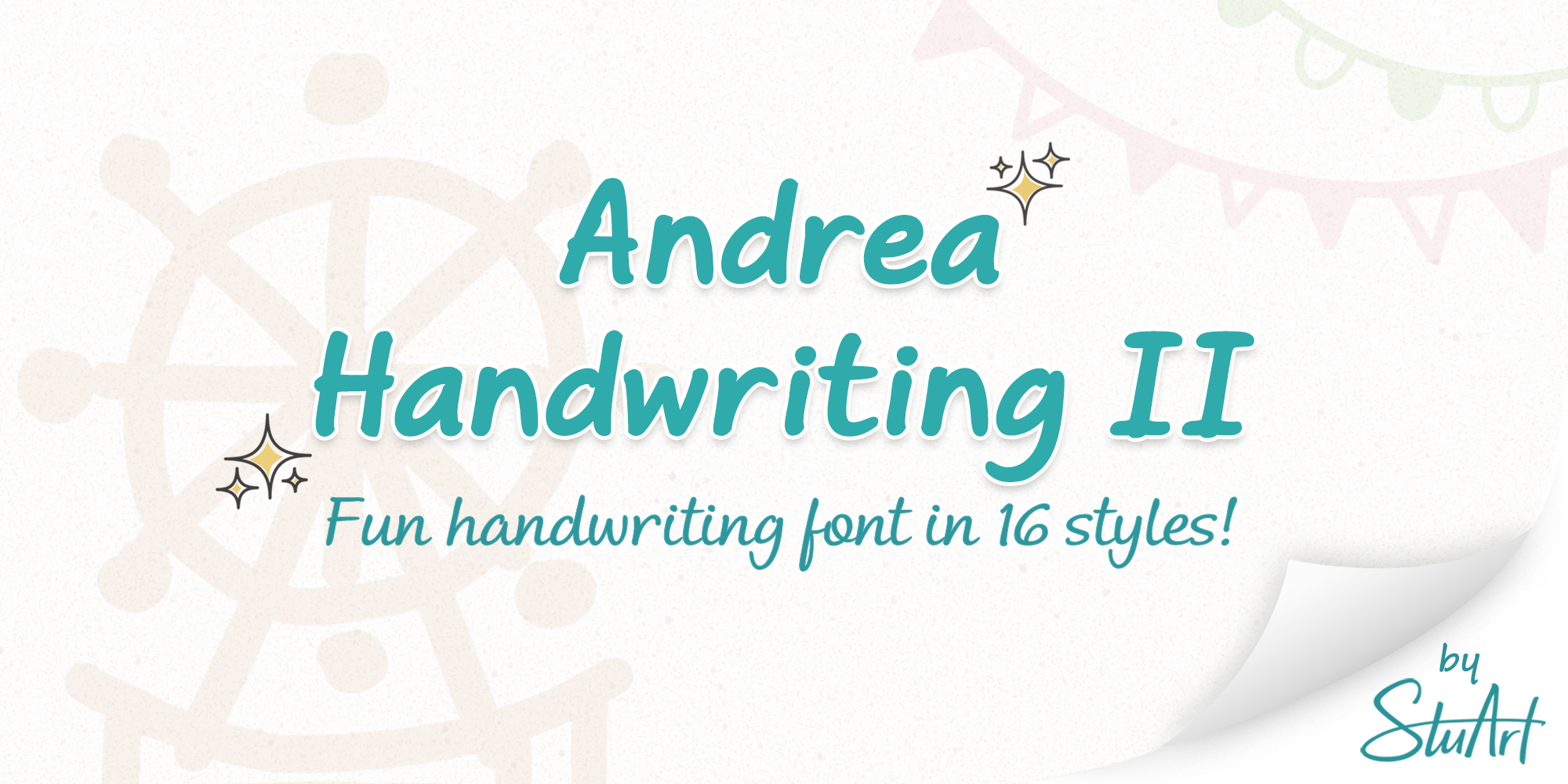
Andrea Handwriting II Font is ideal for personal stationery design, handwritten letter templates, journal and diary layouts, feminine lifestyle branding, personal blog headers, intimate wedding invitations, artisan craft labels, and authentic personal correspondence materials. This graceful typeface brings personal warmth and handwritten authenticity to any design project celebrating individual expression and the intimate beauty of personal communication.
What makes Andrea Handwriting II Font exciting is its genuine capture of natural handwriting flow combined with feminine elegance that perfectly embodies the personal touch and intimate character of authentic hand-penned correspondence. The flowing letterforms feature natural pen strokes and personal rhythm that create an unmistakably genuine appearance. Each character reflects individual personality and writing style, making it ideal for brands that celebrate personal expression, authentic communication, and the timeless beauty of handwritten messages.
The Andrea Handwriting II Font family typically includes regular weight with complete uppercase and lowercase letters, numbers, punctuation marks, and personal writing flourishes. Many versions feature additional handwritten variations, natural connecting strokes, and authentic writing elements that enhance the personal aesthetic and provide creative flexibility for intimate and personalized design applications.
Whether you're developing personal lifestyle brands or creating intimate correspondence materials, Andrea Handwriting II Font Free Download offers unmatched personal authenticity and handwritten charm. This intimate typography choice transforms digital text into personal communications that resonate with audiences seeking authentic human connection and individual expression. The font's natural construction ensures exceptional emotional appeal across various personal applications while maintaining its distinctive handwritten character that makes every design project feel like a personal letter from someone who takes time to write by hand with care and individual style.